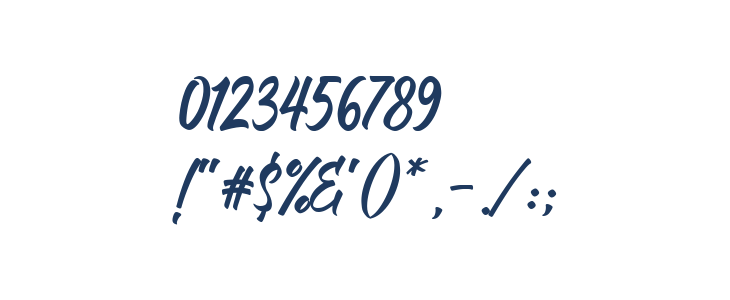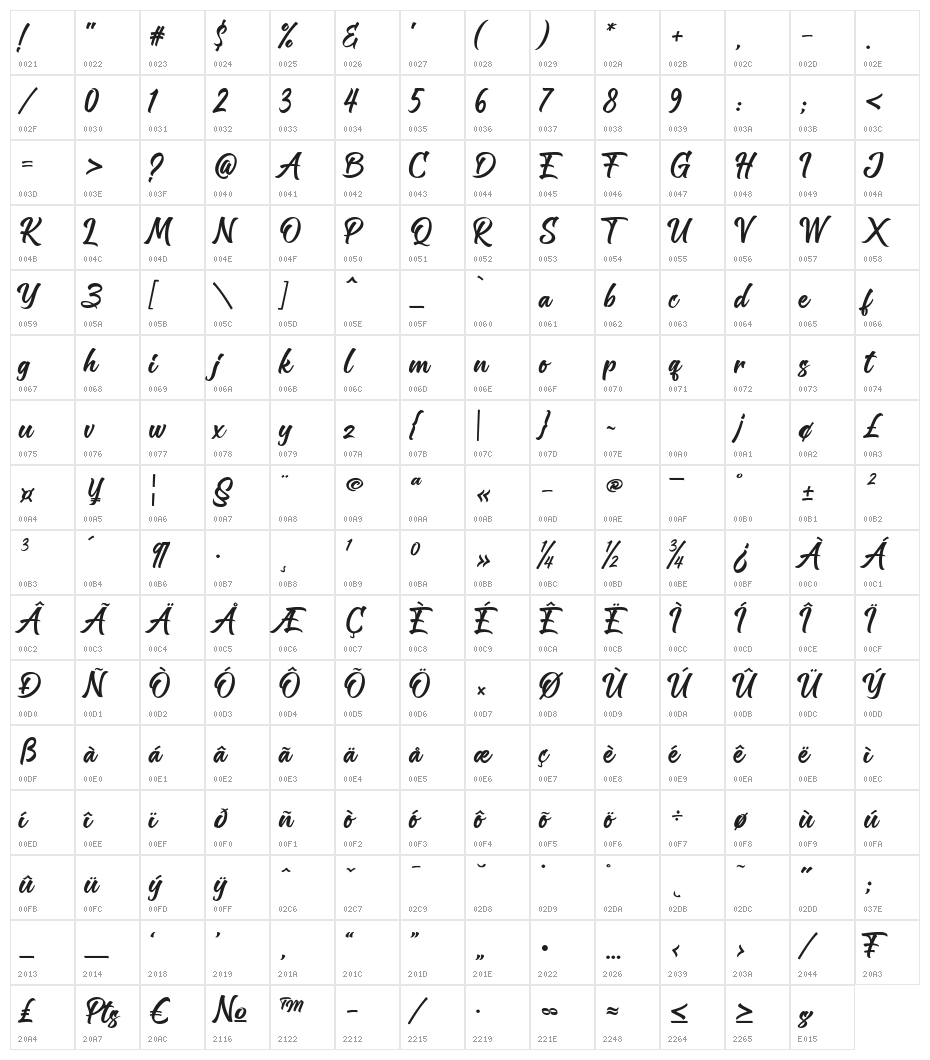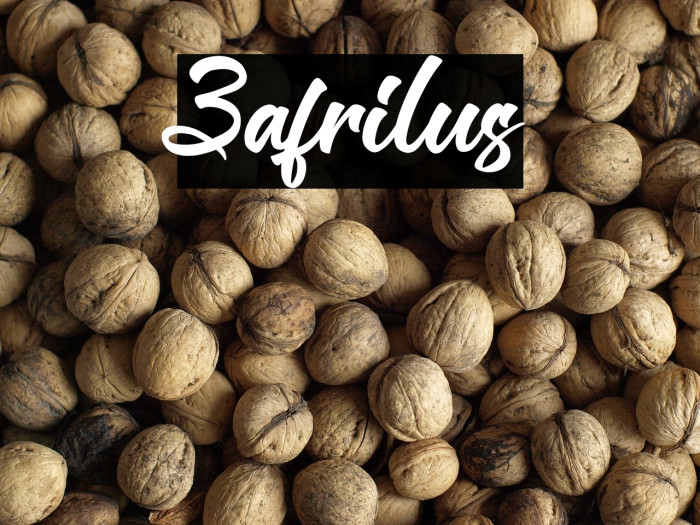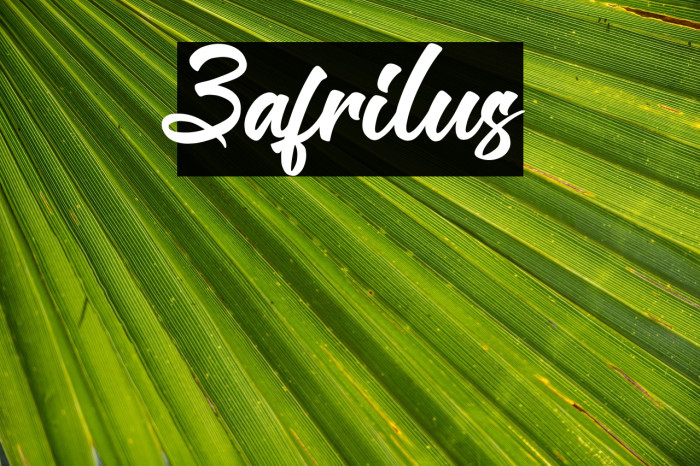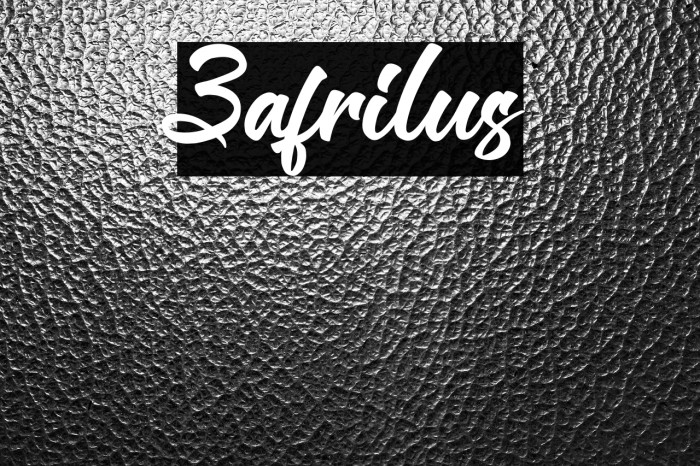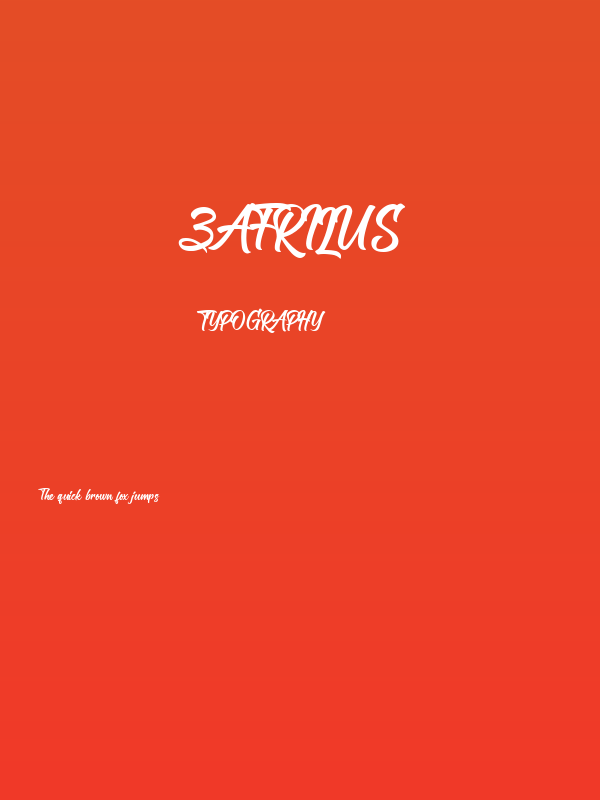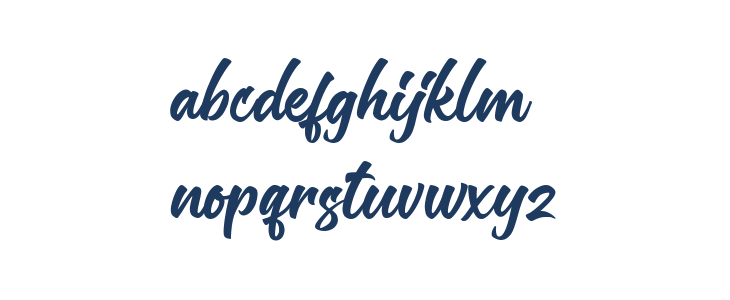
Zafrilus Font
Zafrilus Description
This font features a bold and dynamic script style, characterized by its flowing, cursive letterforms. The uppercase letters exhibit a sense of elegance and flair, with sweeping curves and pronounced loops that give it a lively appearance. The lowercase letters maintain a consistent style, offering a harmonious blend of readability and artistic expression. The numerals are equally stylized, matching the overall aesthetic with their fluid lines. Special characters are designed to complement the font's energetic and expressive nature, making it suitable for creative and decorative purposes.